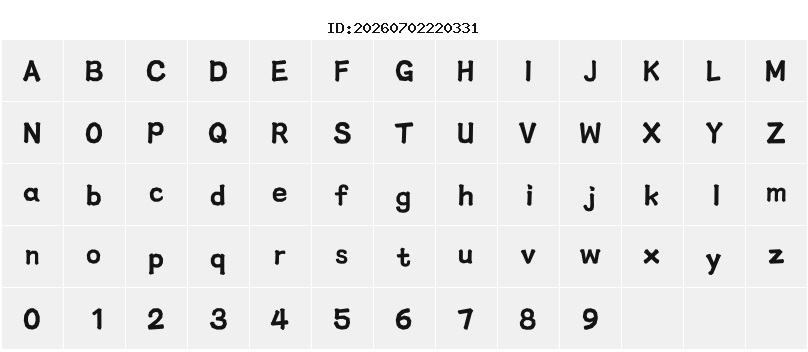
105-上首逍遥体 Preview
About 105-上首逍遥体.ttf
105-上首逍遥体.ttf is a modern, elegant sans-serif font designed for ultimate readability and visual harmony. Perfect for branding, headlines, web design, and print materials.